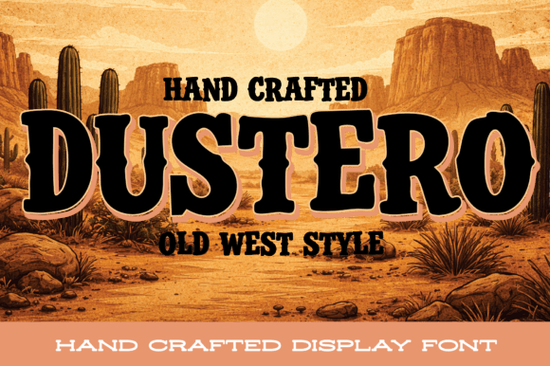
If you're designing a western-themed project and need a typeface that actually looks like it belongs on a saloon door or a wanted poster, the Dustero font is worth a close look. It's a bold, rough-edged display typeface with chunky serifs and hand-drawn imperfections that give it an authentic frontier feel. Think old west signage, desert grit, and a little bit of cartoon attitude all rolled into one typeface. Whether you're working on branding, packaging, or a vintage-style poster, this font brings that dusty, rugged character without feeling overly serious.
What Makes Dustero Different From Other Western Fonts?
Plenty of western-style fonts exist, but many of them lean too far in one direction either too clean and modern, or so distressed that they're hard to read. Dustero sits in a sweet spot. The subtle distressing adds texture without sacrificing legibility, and the chunky letterforms give it a cartoon-like boldness that works well at larger sizes.
It captures a playful yet rugged vibe, which makes it flexible. You can use it for something lighthearted like a kids' rodeo party invitation, or tone it down for a more serious brand identity for a barbecue restaurant. The hand-drawn imperfections are deliberate, not sloppy they give the font personality.
Compared to fonts with a cleaner aesthetic, like a preppy chunky display option, Dustero takes a completely different visual direction. Where those fonts work for polished, modern branding, Dustero is built for projects that need texture, warmth, and a bit of grit.
What Projects Work Best With a Cowboy-Style Display Font?
This is a display font, so it's not meant for body text or long paragraphs. It shines in short, high-impact placements where you want the typeface itself to do the visual heavy lifting. Here are some common uses:
- Western-themed branding – ranch logos, rodeo event graphics, country bar signage
- Print-on-demand products – t-shirts, mugs, and stickers with a frontier or desert theme
- Poster design – event posters, movie night flyers, themed party invitations
- Packaging – jerky brands, craft hot sauce labels, artisan goods with a rustic feel
- Digital content – YouTube thumbnails, social media graphics, blog headers
- Crafting projects – Cricut or Silhouette designs, scrapbook elements, custom decals
If you sell on platforms like Etsy or Redbubble, a distinctive font like this can help your products stand out in search results. Buyers scrolling through dozens of western-themed designs are more likely to stop on something with strong, readable typography.
How Does Dustero Pair With Other Fonts?
Pairing a bold display font with the right secondary typeface makes a big difference. Since Dustero has a lot of visual weight and texture, it works well alongside simpler, cleaner fonts for contrast. A basic sans-serif or a straightforward serif for supporting text keeps the design balanced.
Is Dustero Easy to Use for Beginners?
You don't need advanced typography skills to use it effectively. The key is keeping your usage focused: headlines, logos, short phrases, and display text. Avoid setting full sentences in a font like this, and make sure there's enough contrast between the font and the background for readability, especially on printed products.
One practical tip: at very small sizes, the distressed details can become muddy. Test your designs at the actual print size before committing to a final version. This is especially important for print-on-demand products where you can't easily adjust after a customer orders.
Quick Checklist Before Using Dustero in Your Next Project
- Test at print size – distressed fonts can lose detail when scaled too small
- Pair with a simple secondary font – don't compete with another bold typeface
- Use it for headlines and display text only – it's not designed for body copy
- Consider your audience – western themes work for specific niches, so make sure the style matches your market